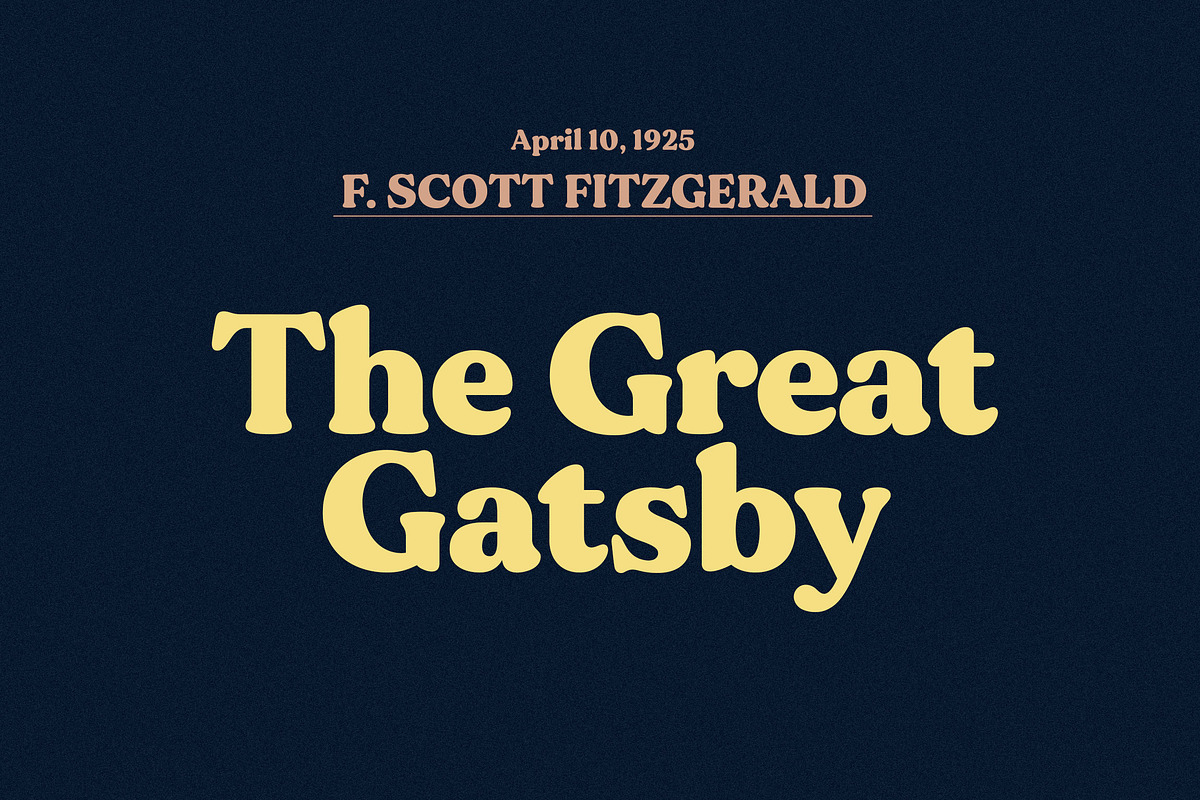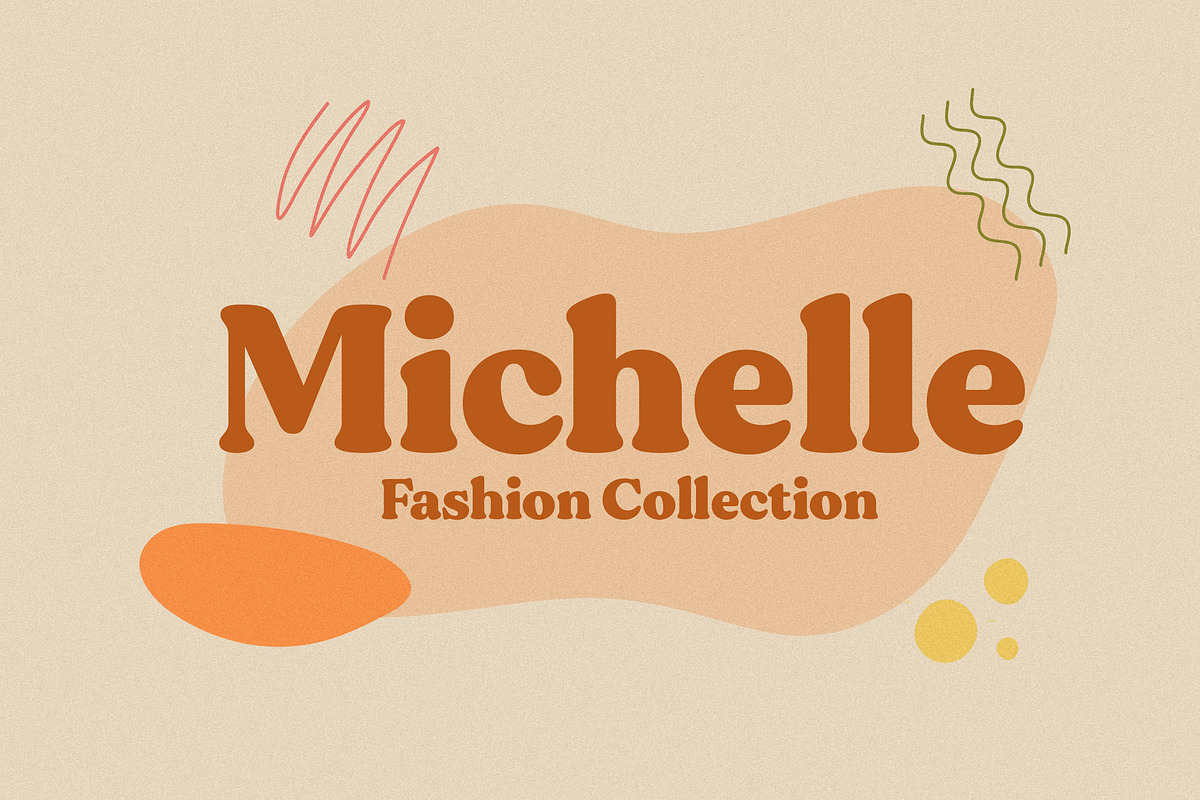
Made Gentle is a modern soft serif typeface. It will be perfect for many projects: fashion, magazines, logos, branding, photography, invitations, wedding invitations, quotes, blog headers, posters, advertisements, postcards, books, websites, etc.